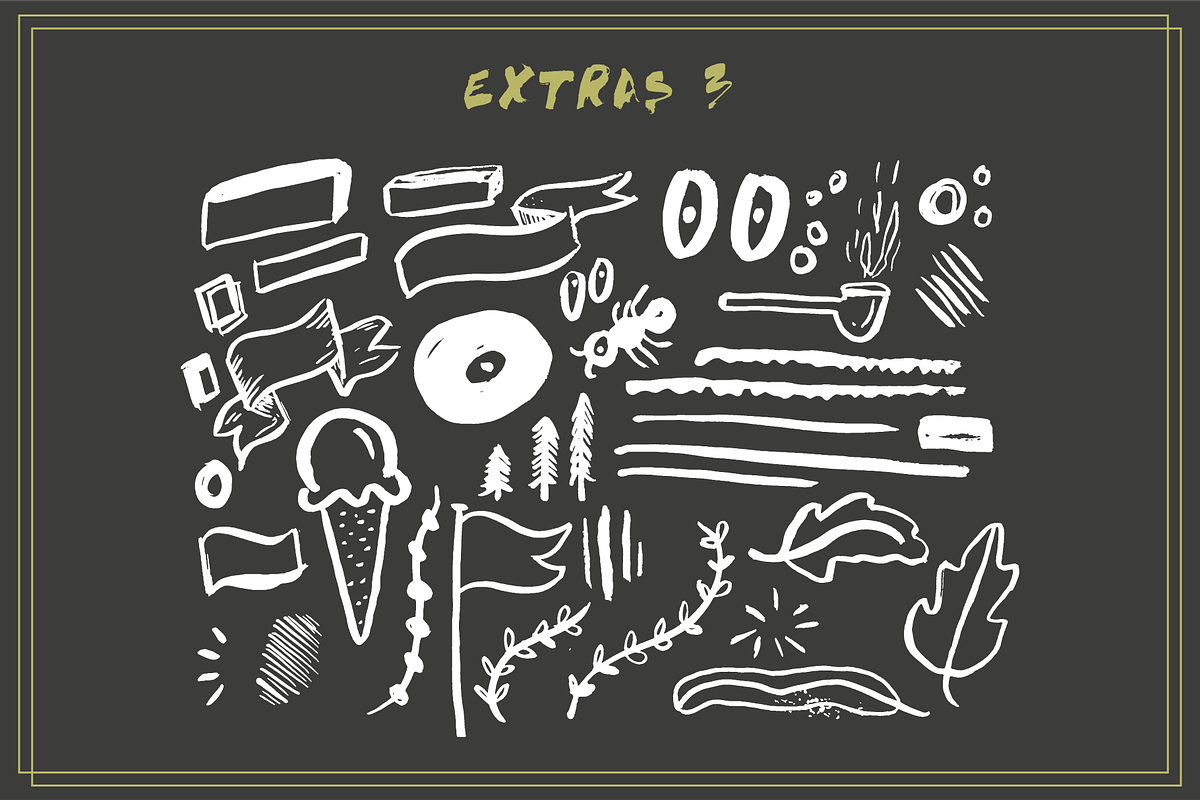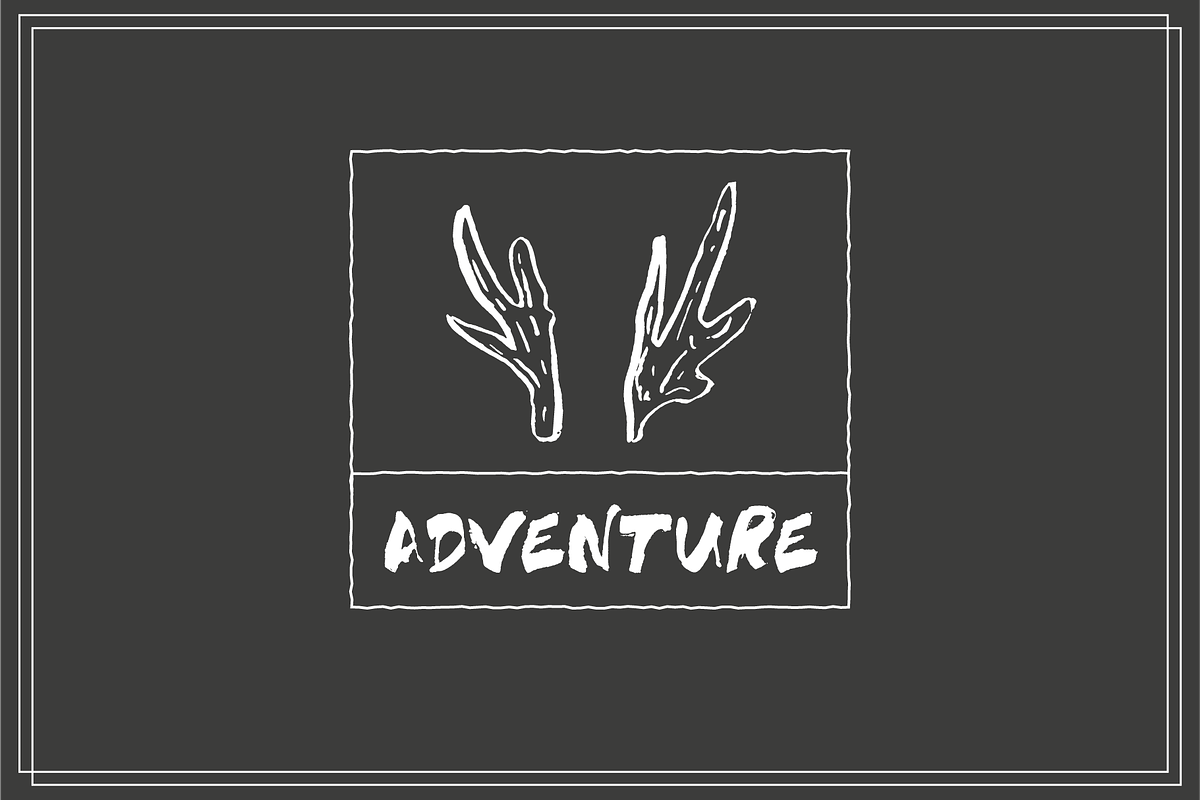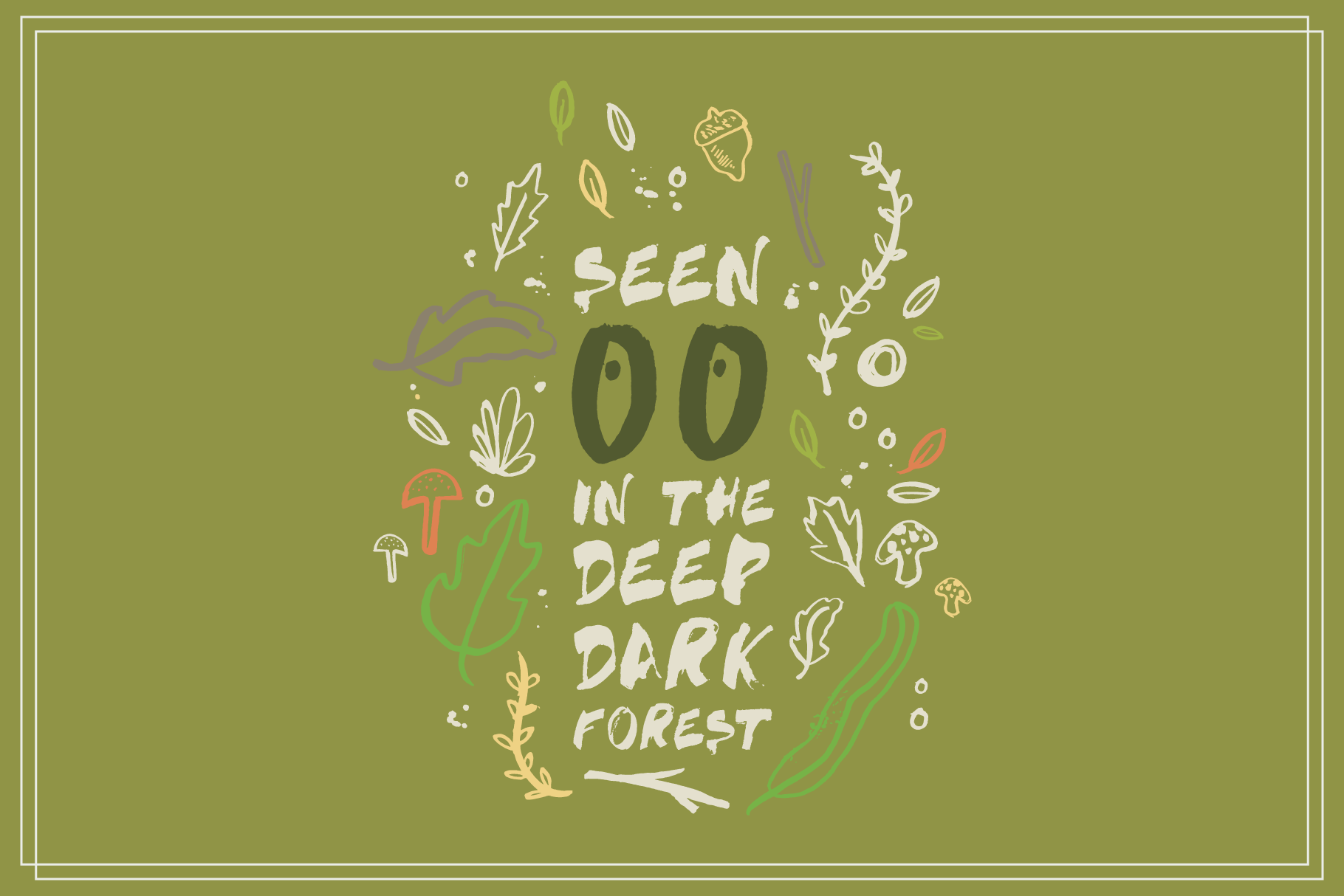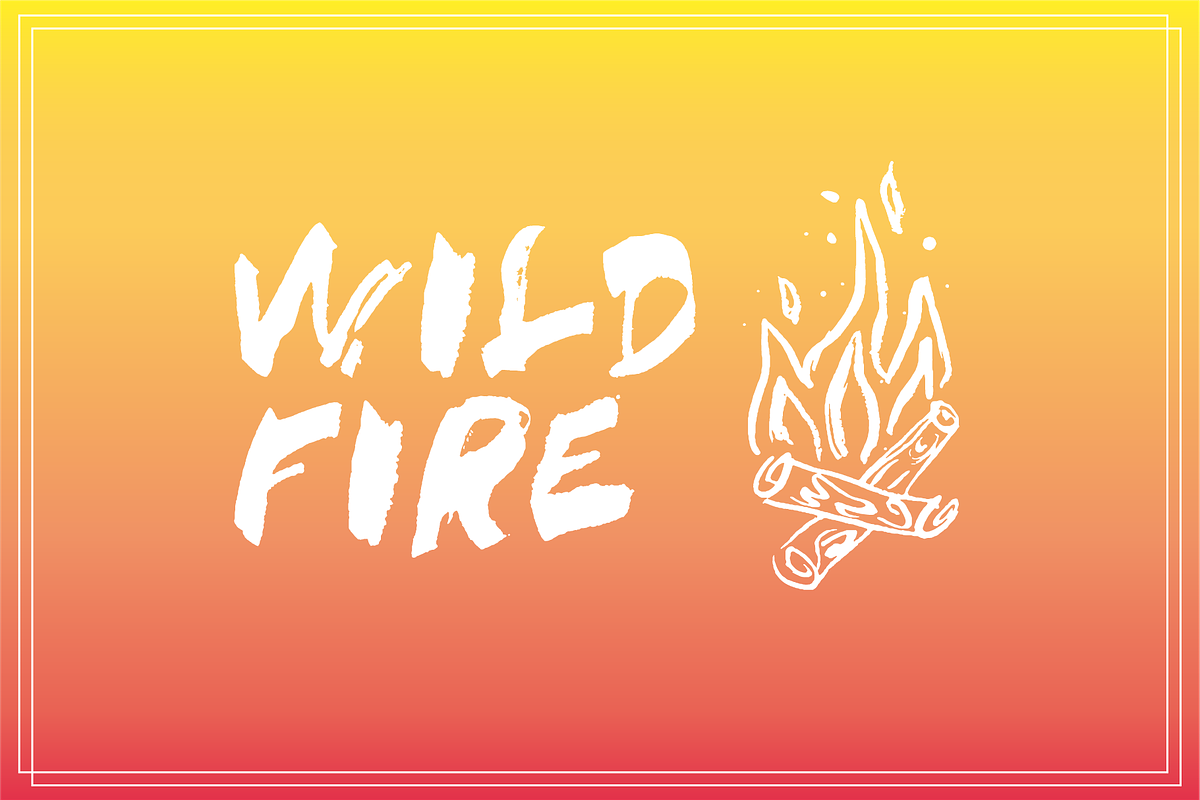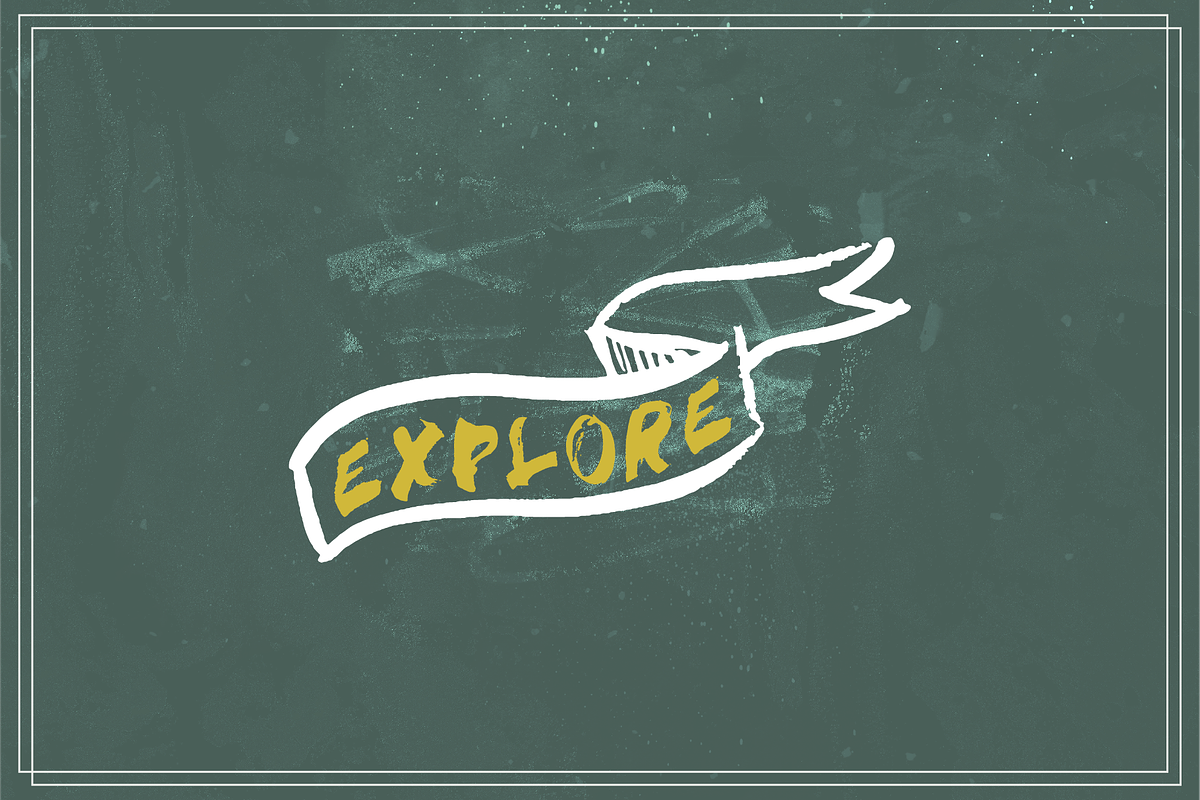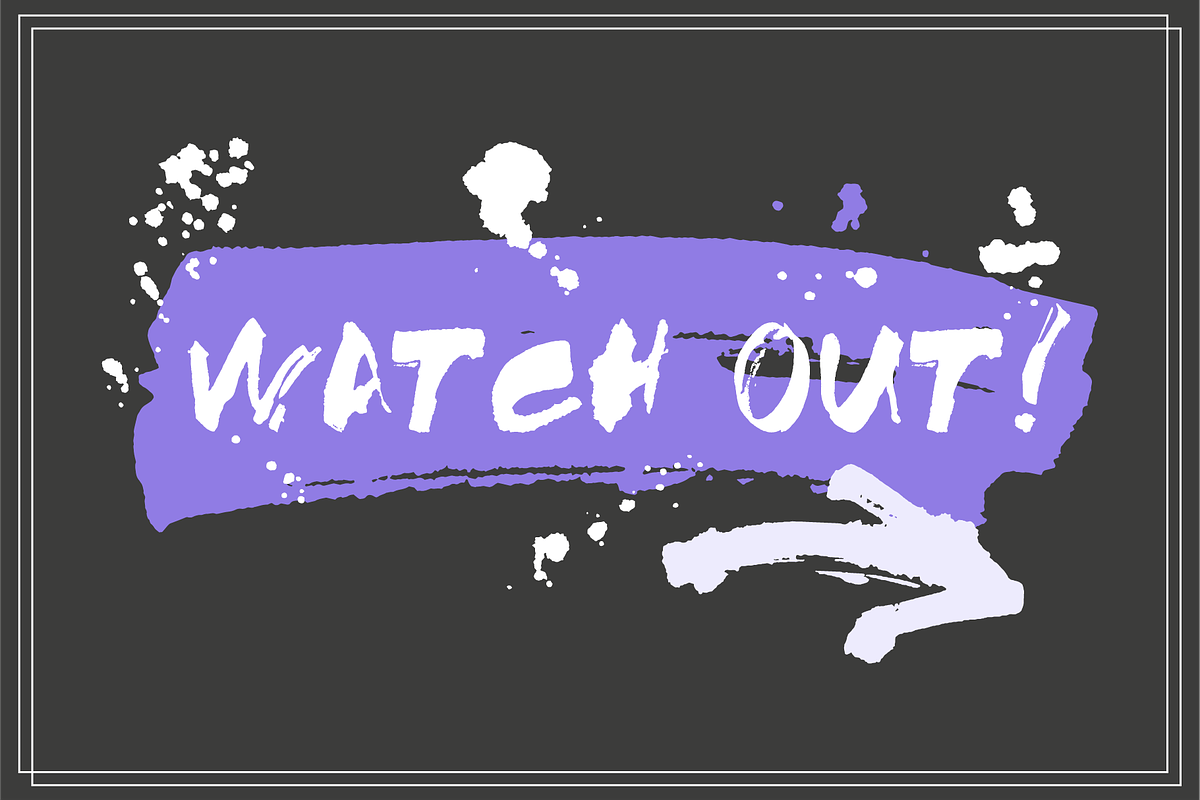
SASQUATCH HAND TEXTURED Font
SASQUATCH a hand splattered, textured font & illustration pallet
This authentic hand inked font includes:
A Bold, Inked font with a unique textured rustic style.
Over 75 hand inked illustrations, to accompany this amazing font!